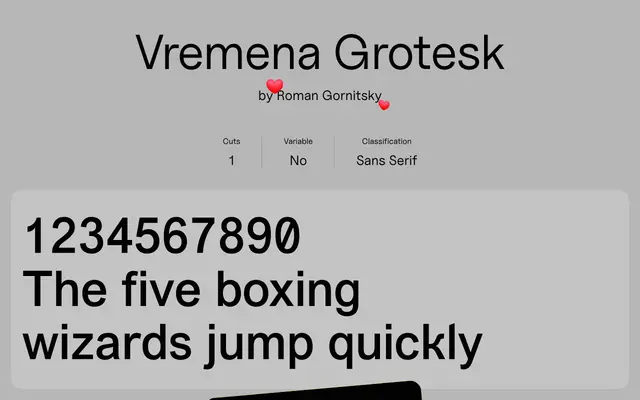
Vremena Grotesk
A single-cut grotesque sans by Russian designer Roman Gornitsky, available free for commercial and personal use.
Vremena Grotesk is a grotesque sans-serif by Roman Gornitsky, distributed through Uncut as a free download under the Fontspring Desktop EULA. It comes in a single cut with no variable axis or italic companion. The licence permits both commercial and personal use without restriction.
Listed as Sans Serif with grotesque characteristics typical of the Vremena typeface family by Roman Gornitsky, a Russian designer known for geometric-influenced grotesque work.